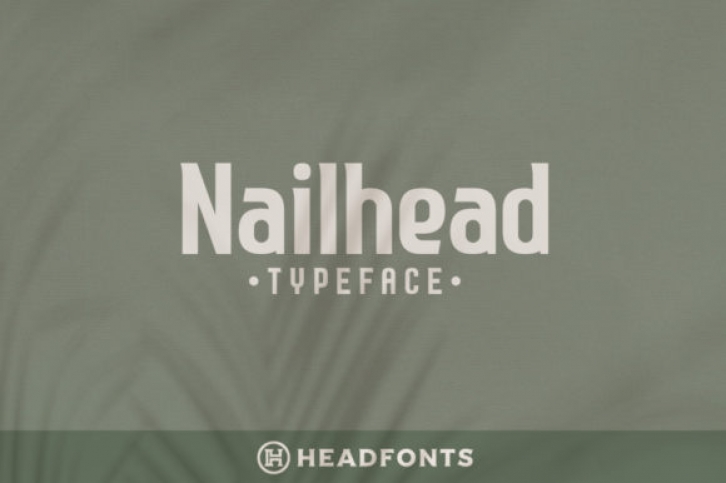
Nailhead is a modern, luxury font that features a relaxed and romantic vibe, making it perfect for wedding invitations, luxury cards, banners, flyers, and much more.